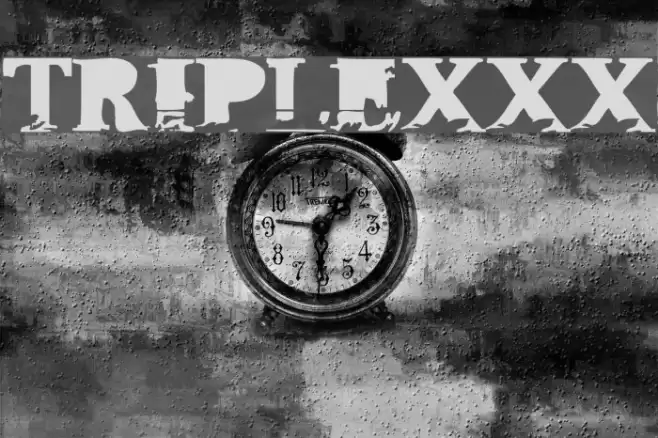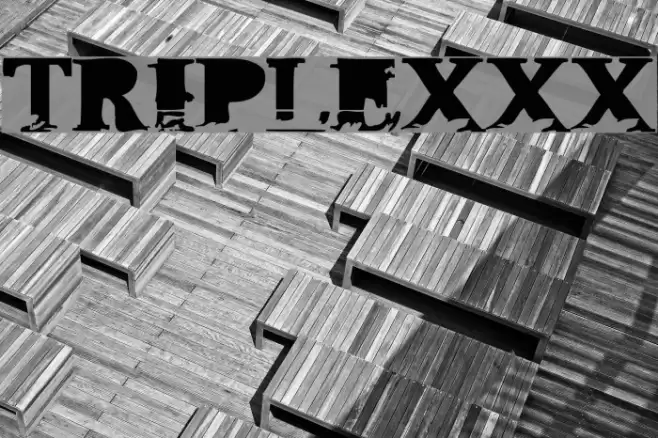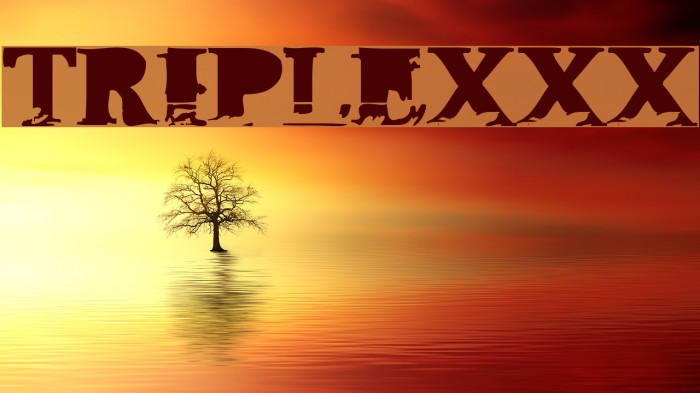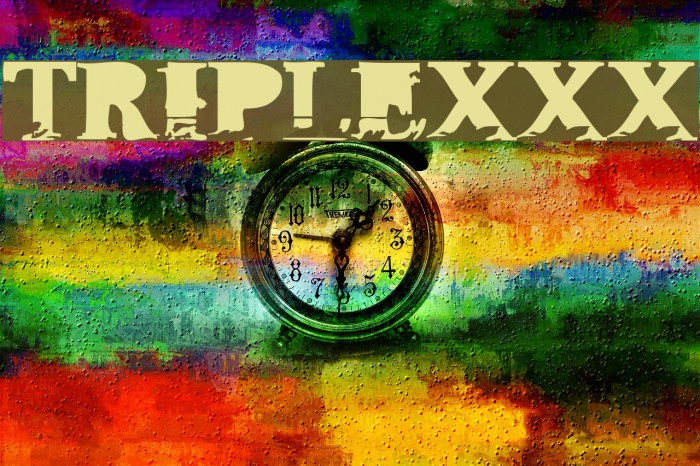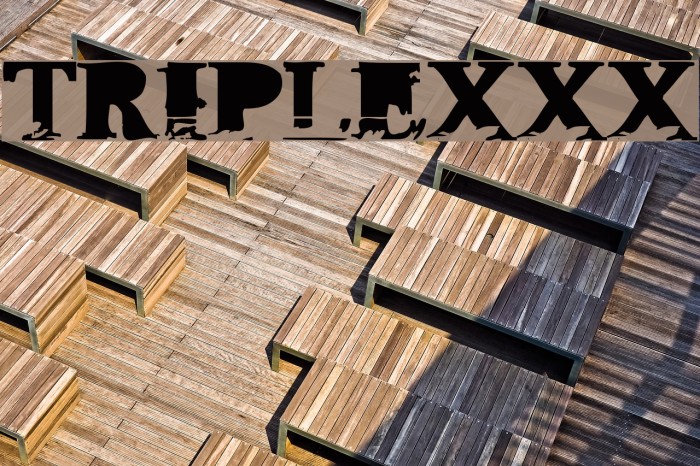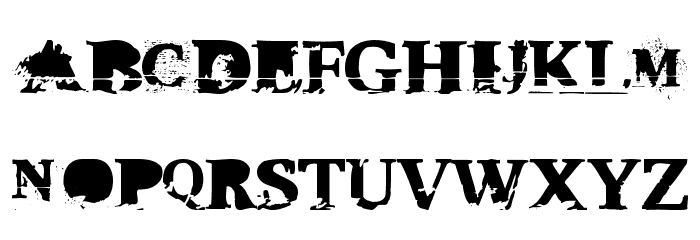
TripleXXX Font
TripleXXX Description
This font features a distressed, grunge style with a bold and impactful appearance. The uppercase letters are heavily textured, giving a worn and rugged look that suggests a sense of history or decay. The characters have a strong presence, with thick strokes and irregular edges that create a dynamic visual effect. This style is reminiscent of urban or industrial themes, making it suitable for projects that require a bold statement. The font lacks lowercase letters and numbers, focusing solely on uppercase characters and a few special symbols, which enhances its decorative and display nature.
A bold, distressed font with a grunge, industrial aesthetic from Distorted Eroded fonts.
- Proposed Projects: Ideal for posters, album covers, urban-themed designs, and any project needing a gritty, bold statement.
- Overall Style: Grunge, Industrial